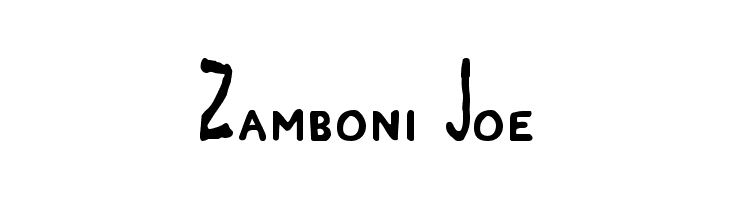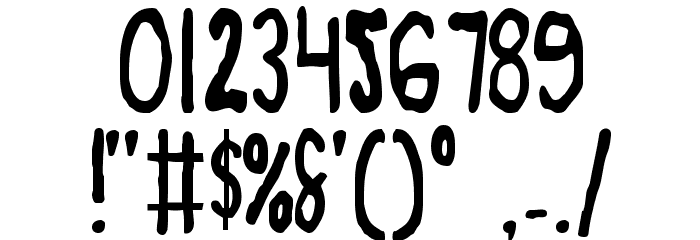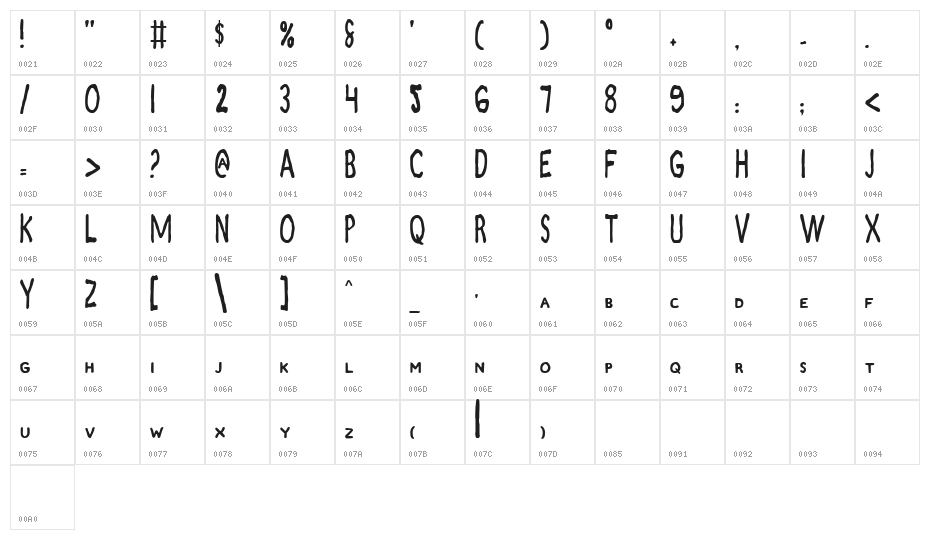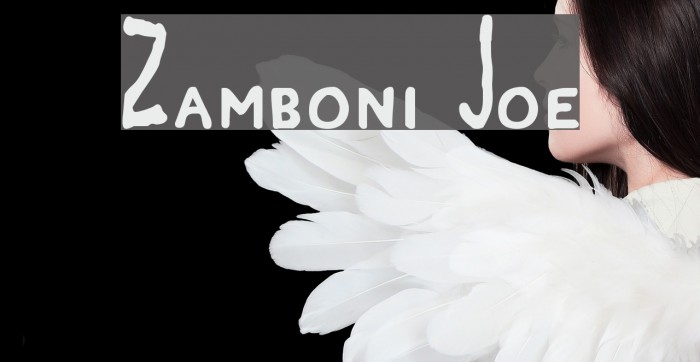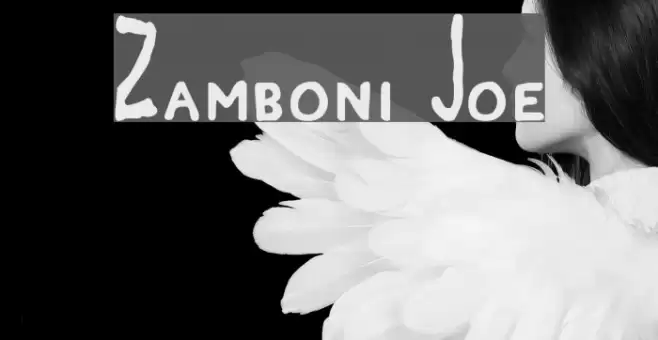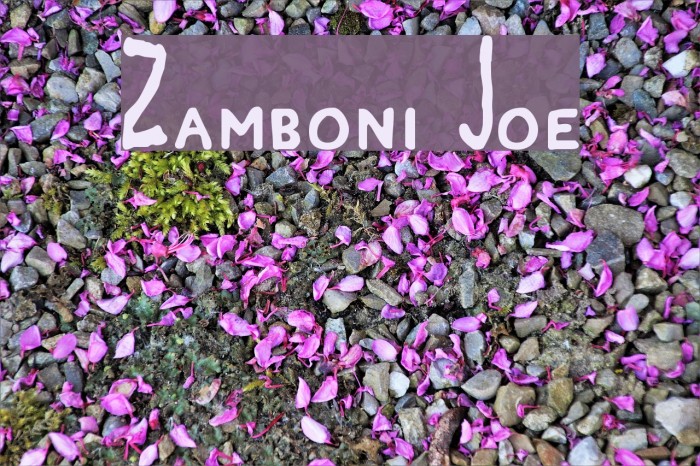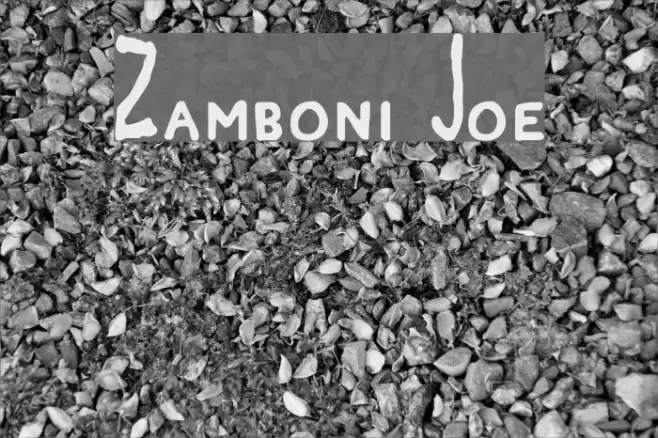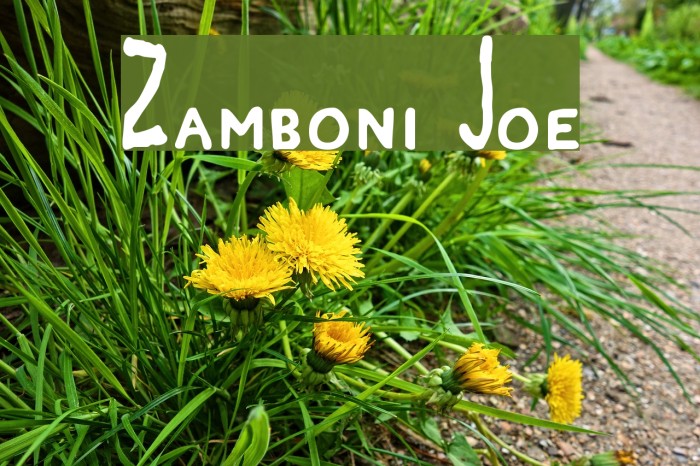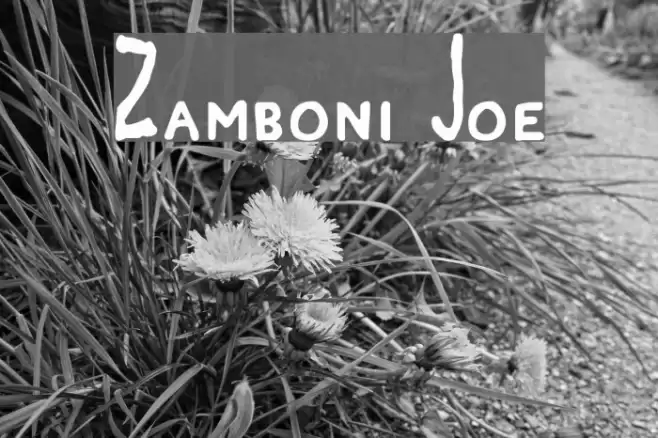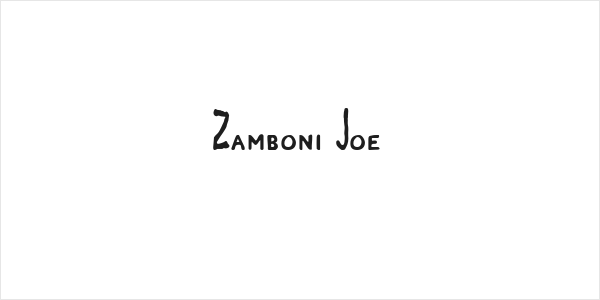
Zamboni Joe Font
Zamboni Joe Description
This font features a playful and quirky style with uneven strokes and a hand-drawn appearance. The uppercase letters are bold and slightly irregular, giving a sense of movement and energy. The lowercase letters maintain the same whimsical quality, with some characters having unique, exaggerated forms. The numbers are consistent with the overall style, adding to the font's charm. Special characters are creatively designed, fitting seamlessly with the rest of the set. This font is perfect for projects that require a fun and informal touch.
| Proposed Projects | Ideal for children's books, comic strips, playful branding, and creative posters. |